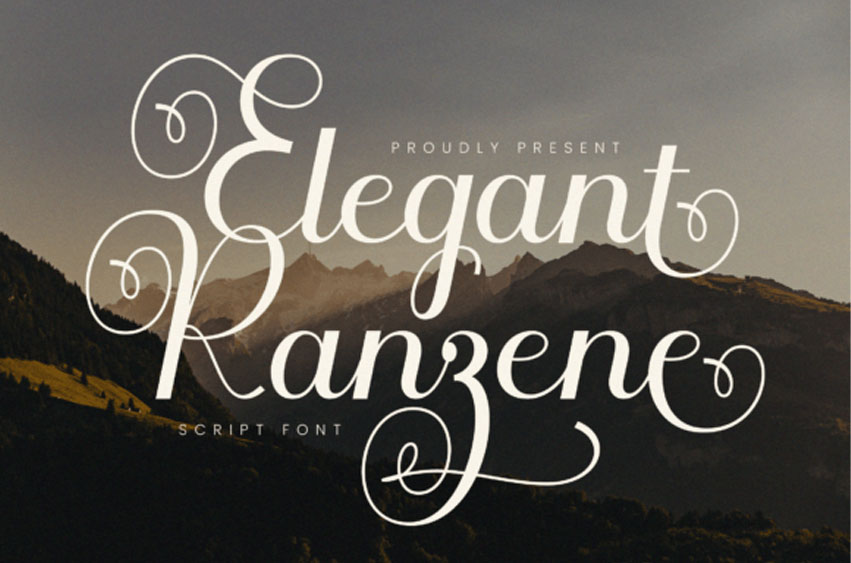
Elegant Ranzene Font
Elegant Ranzene Font Invite charm and elegance into your designs with Ranzene, a magnificent calligraphy font. Perfectly balancing contemporary style with classical elegance, Ranzene has the power to breathe life into any design it touches.
With its authentic, realistic aesthetic, expect your creations to exude a tangibly genuine feel, doubling their impact and appeal. Trust Ranzene to add an enchanting swirl of sophistication to your designs.